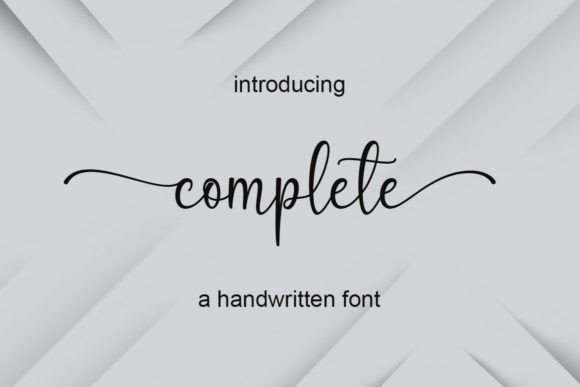
Journey into the enchanting world of Complete Font, a captivating script font crafted by the creative minds at cavalera creative. This exquisite typeface exudes elegance and grace, featuring delicate strokes, intricate curves, and a delightful sprinkle of tiny hearts that infuse every letter with a touch of whimsy and romance.
Prepare to be mesmerized by the sheer beauty of Complete Font, a symphony of flowing lines and enchanting details that will transform your designs into captivating works of art. Whether you're crafting heartfelt invitations, warm greeting cards, or any other project that calls for a touch of sweetness and charm, Complete Font stands ready to elevate your creations to new heights.
With Complete Font's PUA encoding, unleash a treasure trove of glyphs and ligatures that unlock endless creative possibilities. Effortlessly access a vast array of alternate characters, swashes, and ornaments, empowering you to add depth, personality, and a dash of magic to your designs.
Immerse yourself in the enchanting world of Complete Font, a script font that will captivate your audience and leave them spellbound. From heartfelt letters to elegant invitations, Complete Font is your perfect companion, adding a touch of charm and sophistication to every project you undertake.